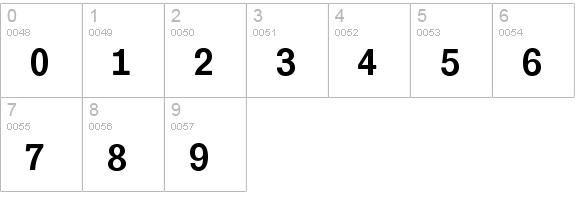
Figgins Sans Bold is a strong, high-contrast variant in the Figgins typeface family \xE2\x80\x94 well suited to headlines, attention-grabbing titles, and strong calls-to-action.
Figgins Sans Bold font is a modern and versatile typeface that exudes confidence and strength. With its bold and clean lines, this font is perfect for making a bold statement in any design project. Whether it's for a striking headline or eye-catching branding, Figgins Sans Bold will command attention. Best of all, Figgins Sans Bold is available for free download at FontsMarket.com. This means you can easily access this high-quality font and use it in your personal or commercial projects without any restrictions. Don't miss out on adding Figgins Sans Bold to your font collection and elevate your designs with its impactful presence.